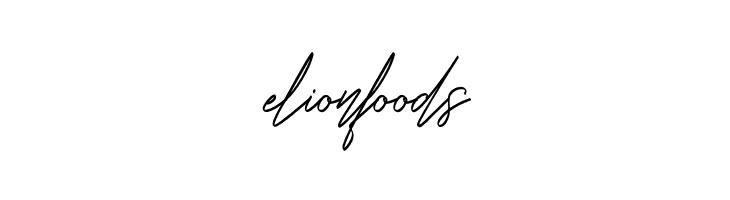
• Panton Rust Heavy Grunge Shadow
A bold, distressed font with a grunge texture and shadow effect.
• anton
A whimsical, cursive font with decorative swirls and a handwritten style.
• Phantom Bold
A bold, geometric font with thick strokes and a distinct outline.
• Phantom Fingers
A decorative, gothic-style font with elongated, sharp characters.
• Bammantoe
A stylish and flowing script font with elegant, fluid strokes.
• Antoine Regular
A bold, dynamic script font with fluid, energetic strokes.
• Antoinete
A flowing, cursive font with elegant loops and artistic flair.
• Pantoufle DEMO Regular
A playful, bold handwritten font with rounded strokes and a casual style.
• Santos
A bold, hand-drawn font with a vintage, impactful style.
• The Camposanto
A bold, distressed font with a grunge, vintage style and textured appearance.